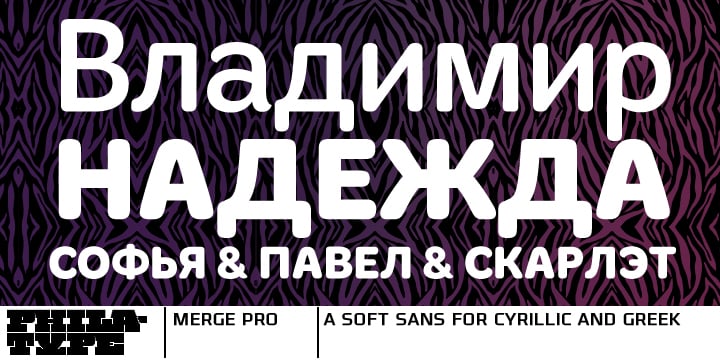
Merge Pro Font is perfect for merger and acquisition firms, business integration consultancies, corporate collaboration platforms, partnership development agencies, unified technology solutions, cross-functional team communications, strategic alliance branding, and professional business unity communications.
What makes Merge Pro Font truly exciting is its sophisticated ability to embody seamless integration and professional synergy through expertly unified letterforms that represent the powerful combination of distinct elements creating stronger, more effective solutions. This strategic typeface features harmoniously blended characteristics with smooth transitional elements that instantly convey collaboration, efficiency, and professional excellence, making it the perfect choice for organizations facilitating business combinations, promoting collaborative solutions, and communicating with audiences who value strategic partnerships and unified approaches to complex business challenges.
The Merge Pro Font family encompasses light, regular, medium, bold, and integrated variations, each designed to demonstrate seamless connectivity, along with condensed and extended variants optimized for diverse business applications, providing designers with comprehensive tools for creating unified brand experiences and collaborative communications that resonate with business professionals seeking strategic integration solutions.
Corporate consulting firms and business integration specialists will discover that Merge Pro Font Free Download delivers the professional authority and strategic sophistication needed to communicate effectively with decision-makers managing complex business combinations and partnership initiatives. This versatile typeface excels in both detailed merger documentation and bold corporate presentations, maintaining its unified character while ensuring optimal performance across all strategic business contexts.
The font's strategically engineered construction demonstrates exceptional attention to both visual harmony and professional functionality, with seamlessly integrated proportions that ensure commanding presence while maintaining superior legibility in high-stakes business environments. From merger announcements to partnership agreements, this professional typeface maintains its collaborative appeal while providing the reliability needed for mission-critical business integration applications. Strategic business brands appreciate how this font effortlessly communicates unity, professional excellence, and distinguished American business integration design excellence through superior merger-focused typography.